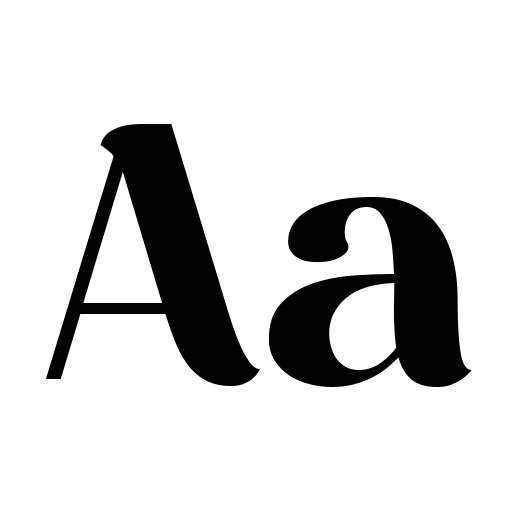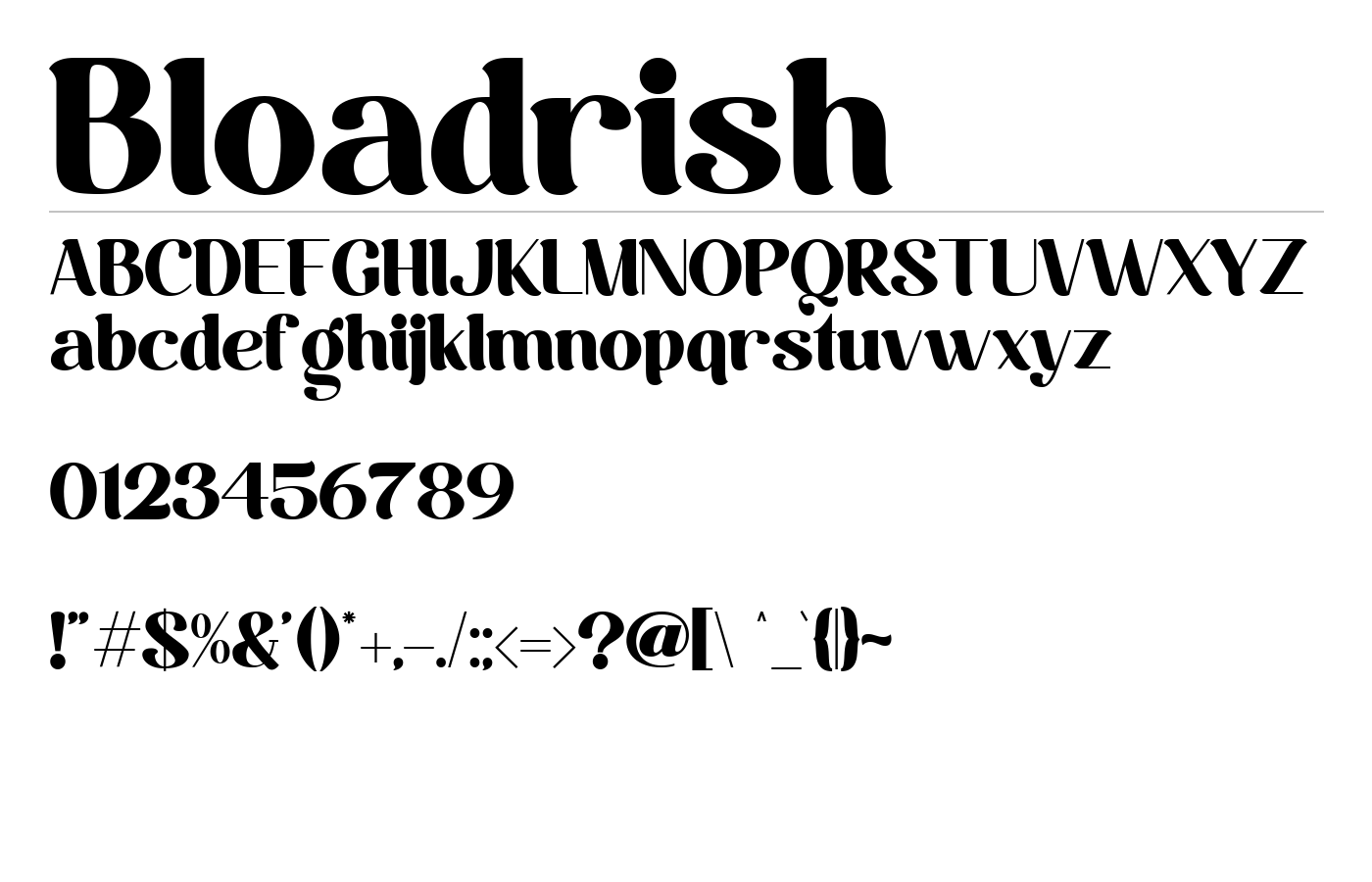
Bloadrish is a bold serif font with a strong personality, featuring high contrast between thick and thin strokes and distinctive bracketed serifs. Its unique letterforms, including stylized terminals and a mix of sharp and curved elements, give it a vintage yet contemporary feel, making it perfect for striking headlines, logos, and fashion branding where impact and elegance are key. This font works best in display settings where its dramatic style can shine and add a touch of sophistication and flair.
Bloadrish Font
About Bloadrish Font
| Designer | Dida Ahluddin |